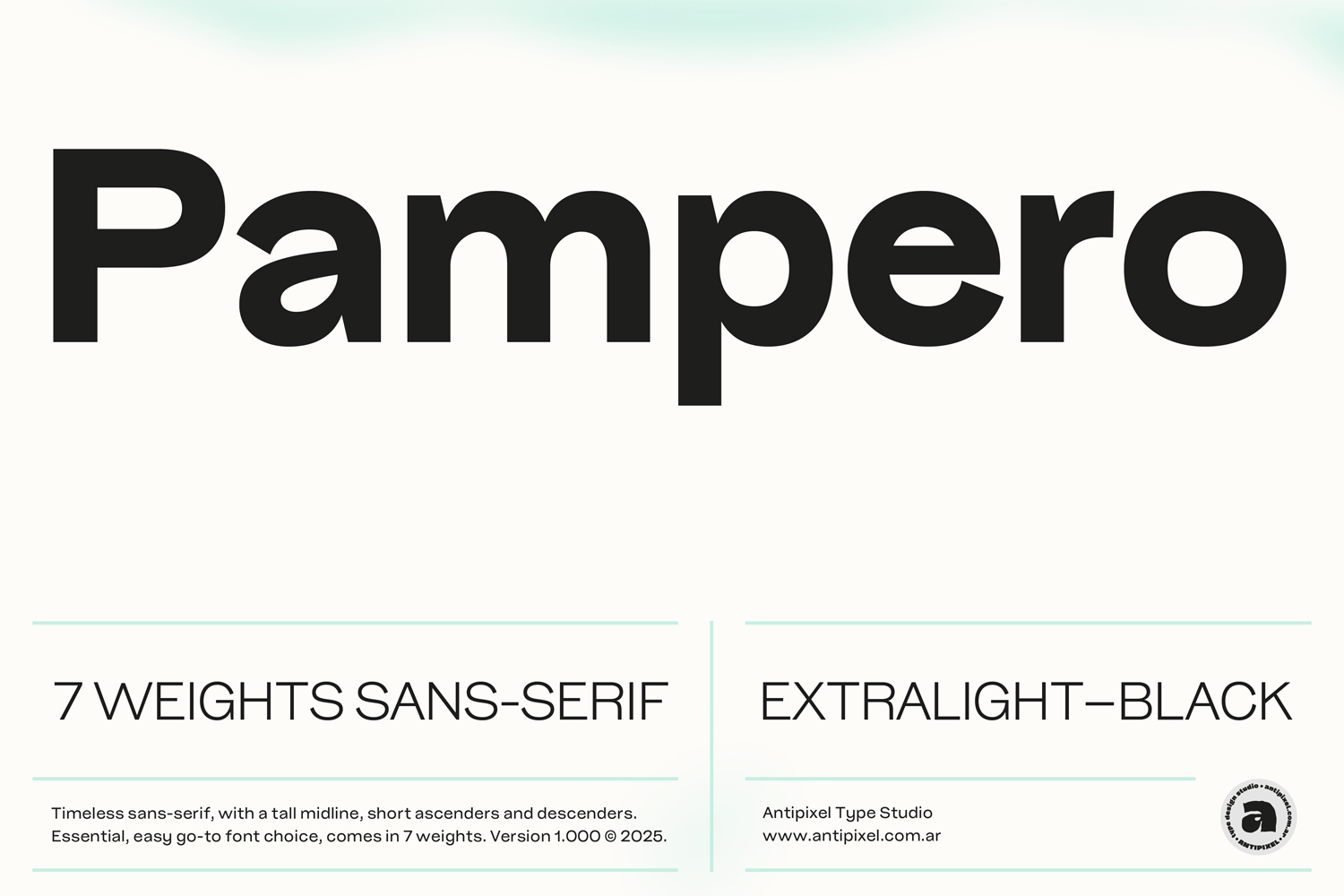
Pampero | Classic Modern Essential Sans 7 weights
Introducing Pampero, a timeless sans-serif typeface designed to be every designer’s easy go-to font choice. Extremely versatile and flexible, Pampero effortlessly adapts to any design context, whether it is as the lead font with a strong personality, or by pairing it as the low key companion. This adaptability comes from its clean, contemporary structure.
Pampero consists of 7 font weights ranging from ExtraLight to Black: ExtraLight, Light, Regular, Medium, Bold, ExtraBold, and Black, making it an essential typeface for any design workflow.
A popular choice thanks to its readability, versatility, and timeless aesthetic. With low-contrast strokes, large x-height, short ascenders and descenders, tall midline, and balanced proportions, every shape is reduced to its core purpose, making Pampero highly flexible and suitable for a wide range of applications, from body text and headlines to branding, web design, and packaging.
Designed with precision and intention, Pampero features high-quality contours that ensure perfect vectors for display and large-scale settings, as big as in billboards, and at the same time defined forms for small settings and delicate details, as in short copy text.
Unapologetic and confident, Pampero is meant to make an impact across multiple languages. With extensive glyph support covering 216 languages, it is built for international reach and global use.